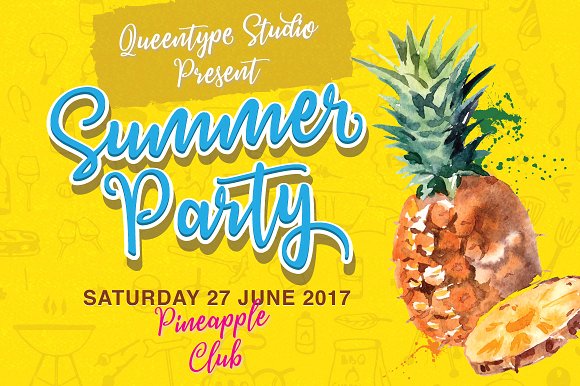
Image Result For Free Stardust Script Typeface Script Fonts
Stardust Script is a beautiful handscript Calligraphy Style give the natural looks. Alternate character contain with Alternate and more. You can access all those alternate characters by using OpenType savvy programs such as Adobe Illustrator and Adobe InDesign..Download Stardust Script today! We have a huge range of Script Font products available. Commercial License Included..A fun bouncy handmade script with texture. Full set of lowercase alternates Multi language support Beginning swashes Ending swashes .Stardust Script is a beautiful handscript Calligraphy Style give the natural looks. Alternate character contain with Alternate and more. You can access all those alternate characters by using OpenType savvy programs such as Adobe Illustrator and Adobe InDesign..Stardust Font You have to purchase a license for commercial and License Free for Commercial Use . Previous articleRottarity Feminine Script Font..Download free stardust adventure font, view its character map and generate text based images or logos with stardust adventure font online. web. . font tags calligraphy, script. downloads Downloads .A modern signature font in handwritten style for creative logos, blog, branding, wedding invitations and design. Feminine and elegant calligraphy script..Stardust Font | dafont.com. in Script > Old School. , downloads yesterday comment Free for personal use Download Donate to .